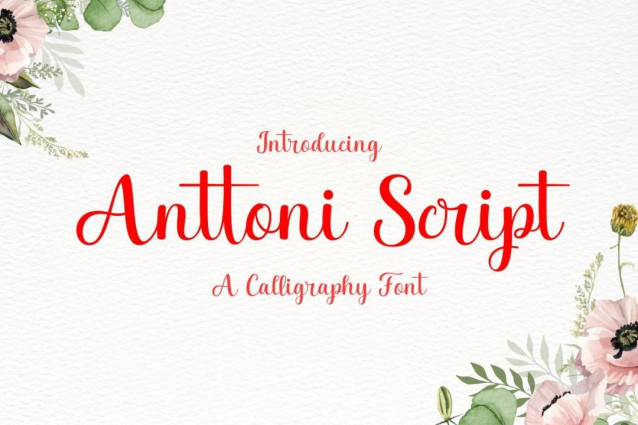
Anttoni Script Font
Anttoni Script Font is a simple and friendly handwritten font. Its natural and unique style makes it incredibly fitting to a large pool of designs. The only limit is your imagination!